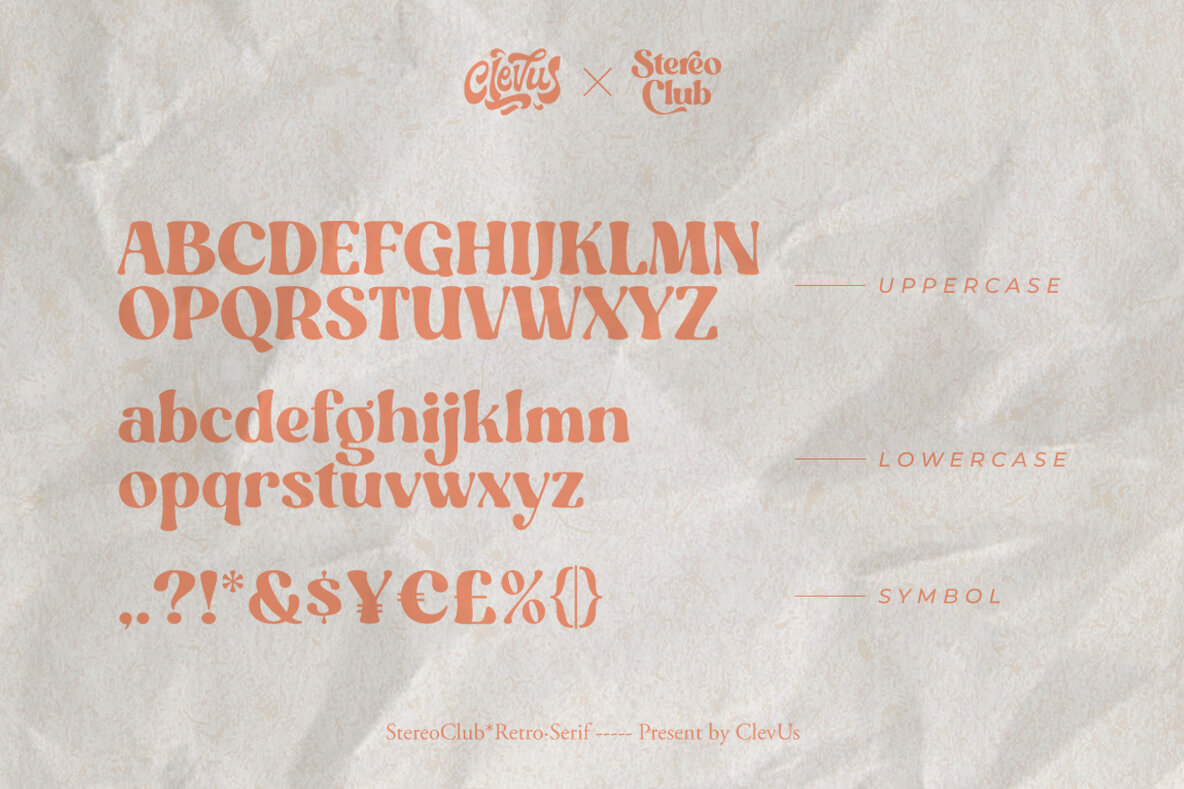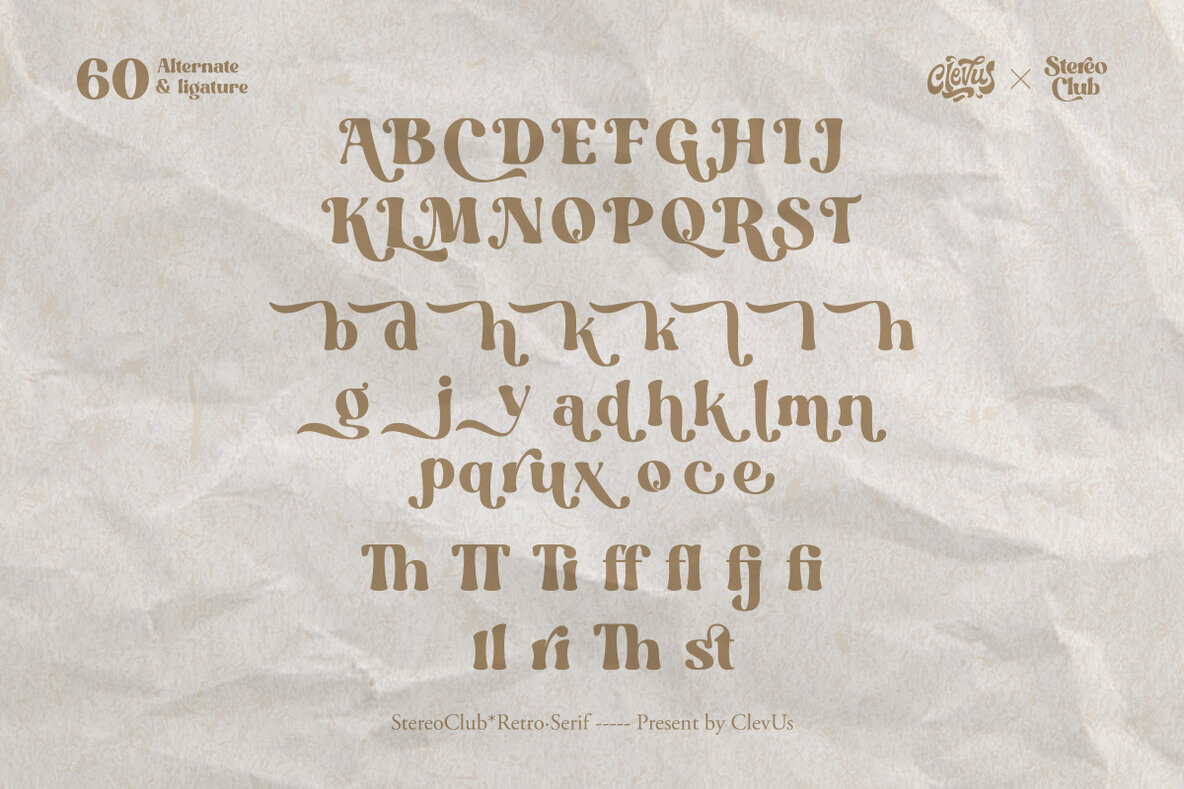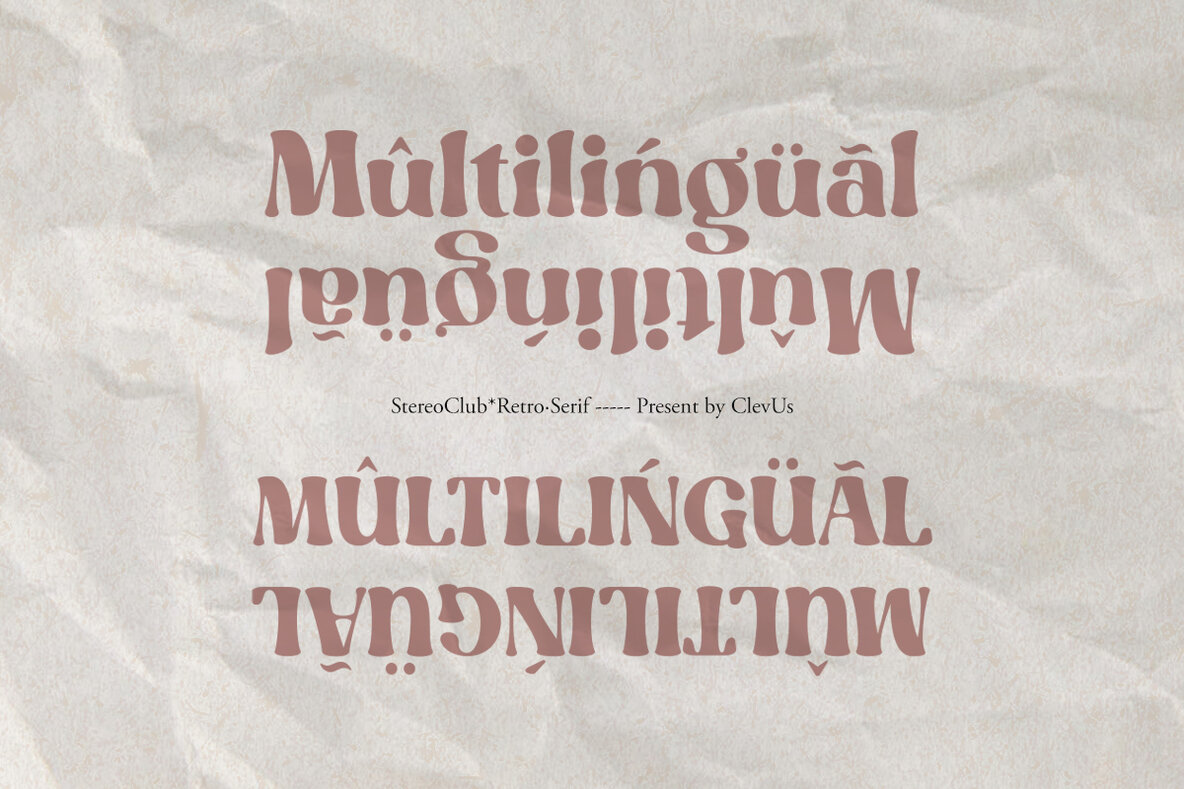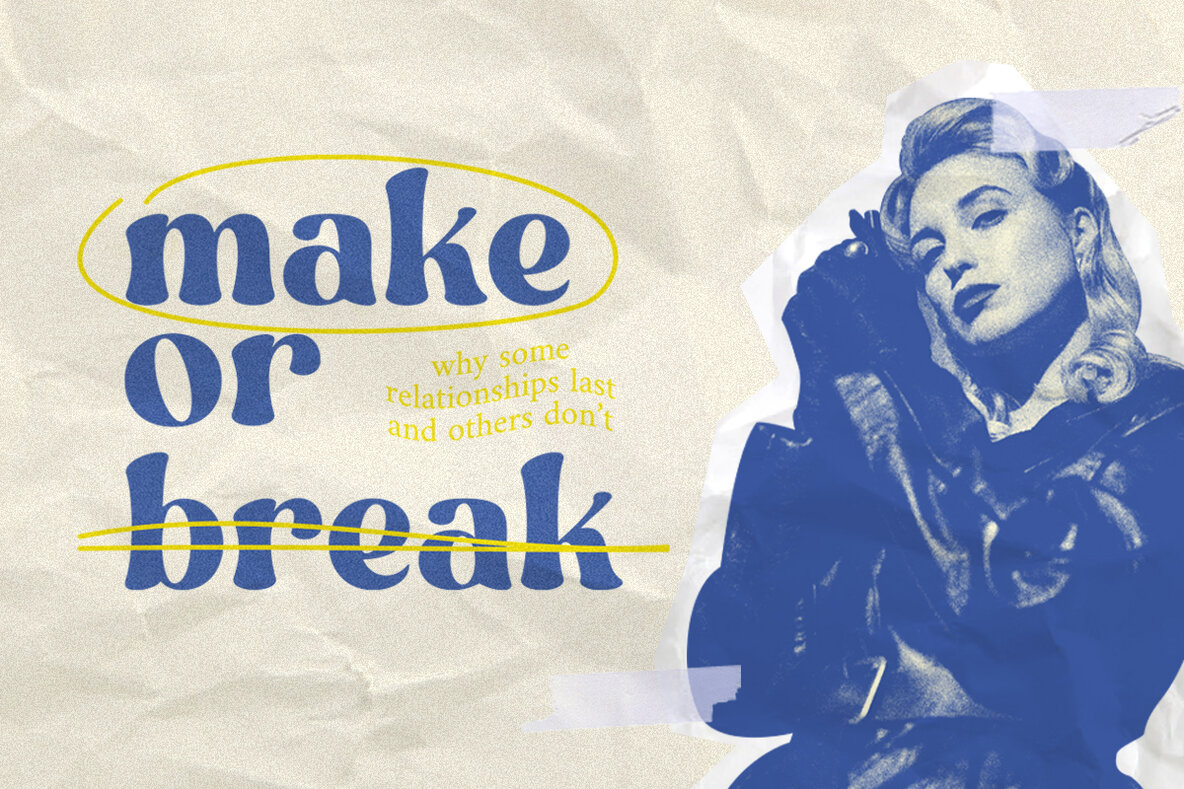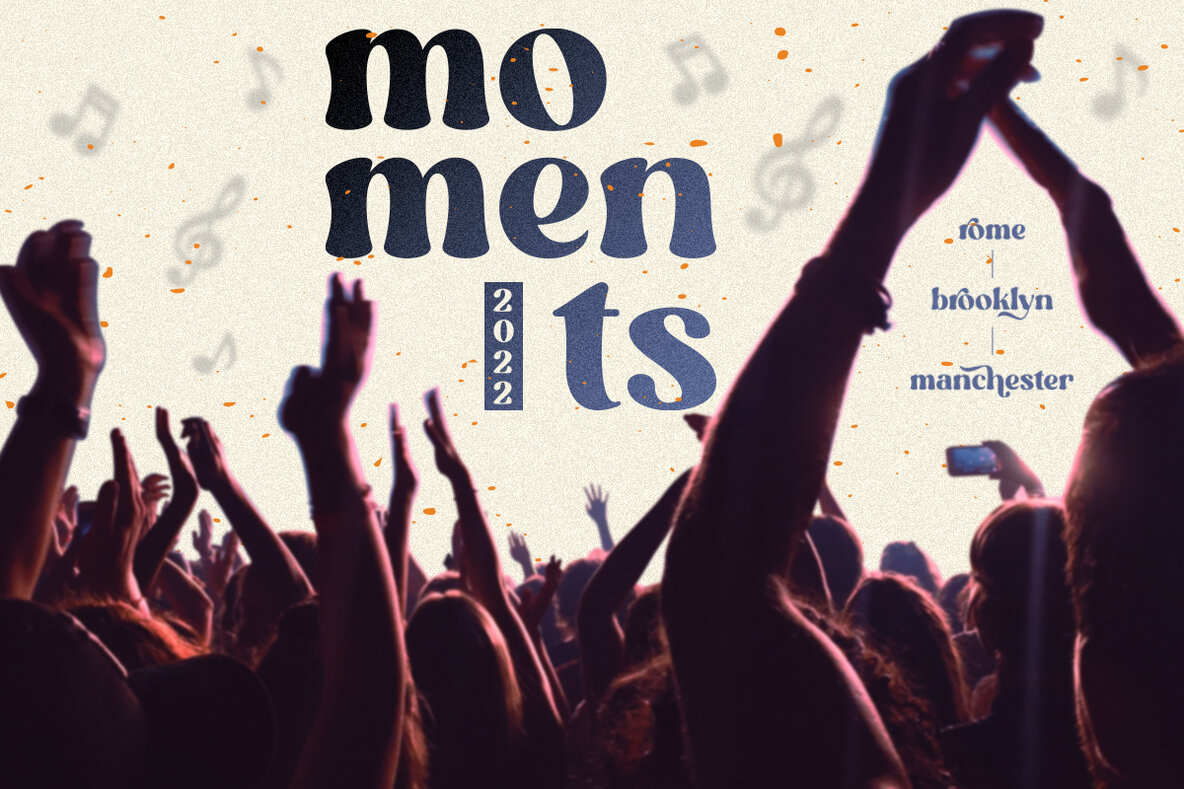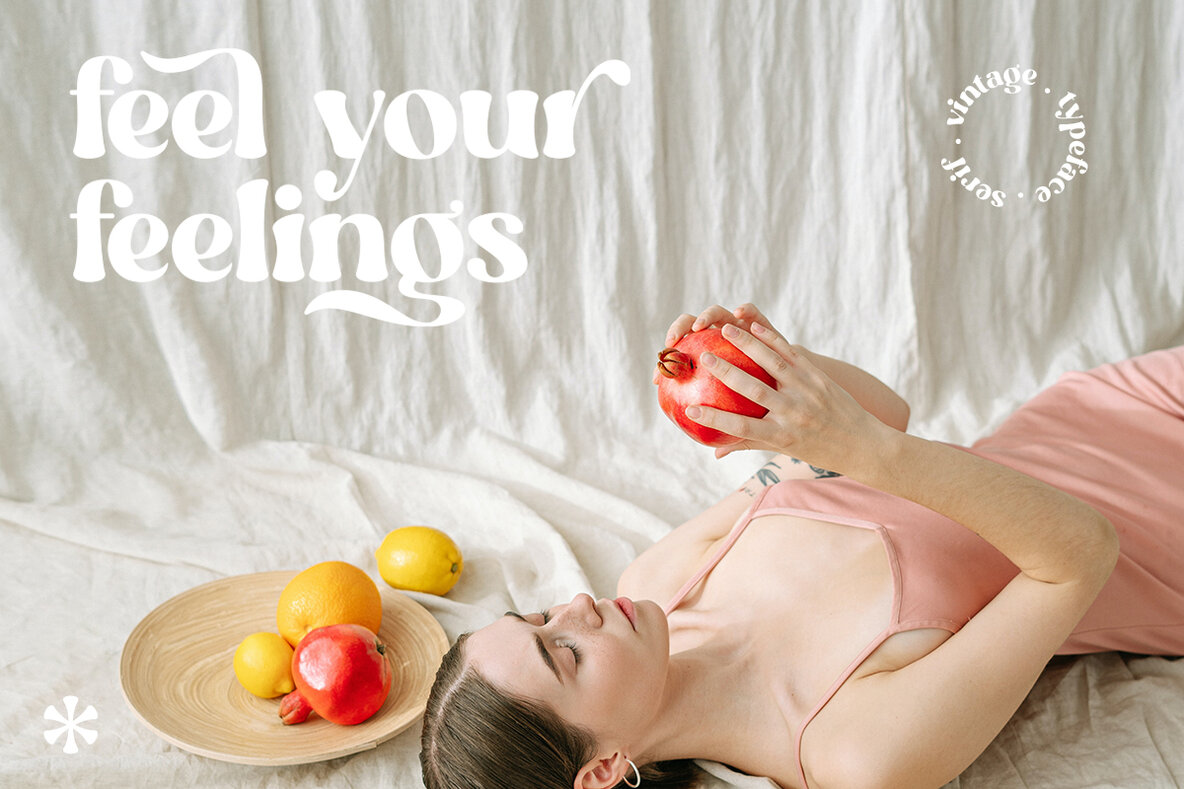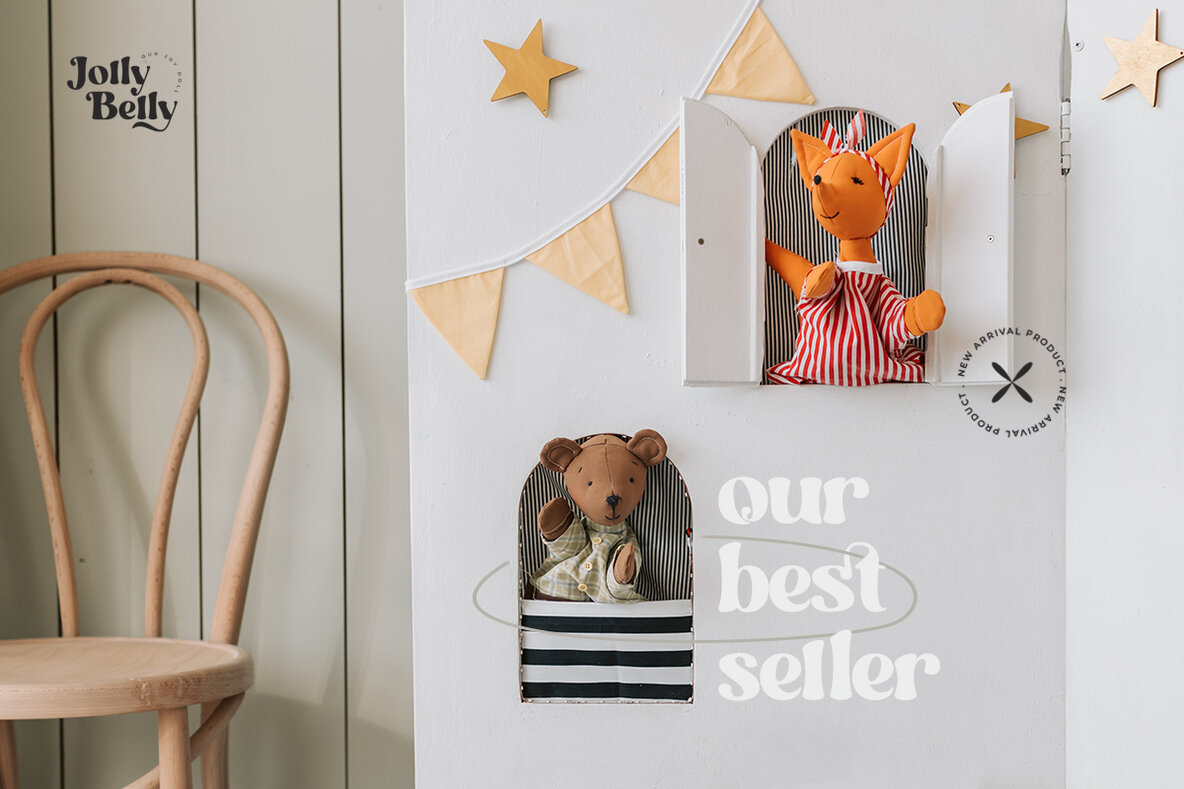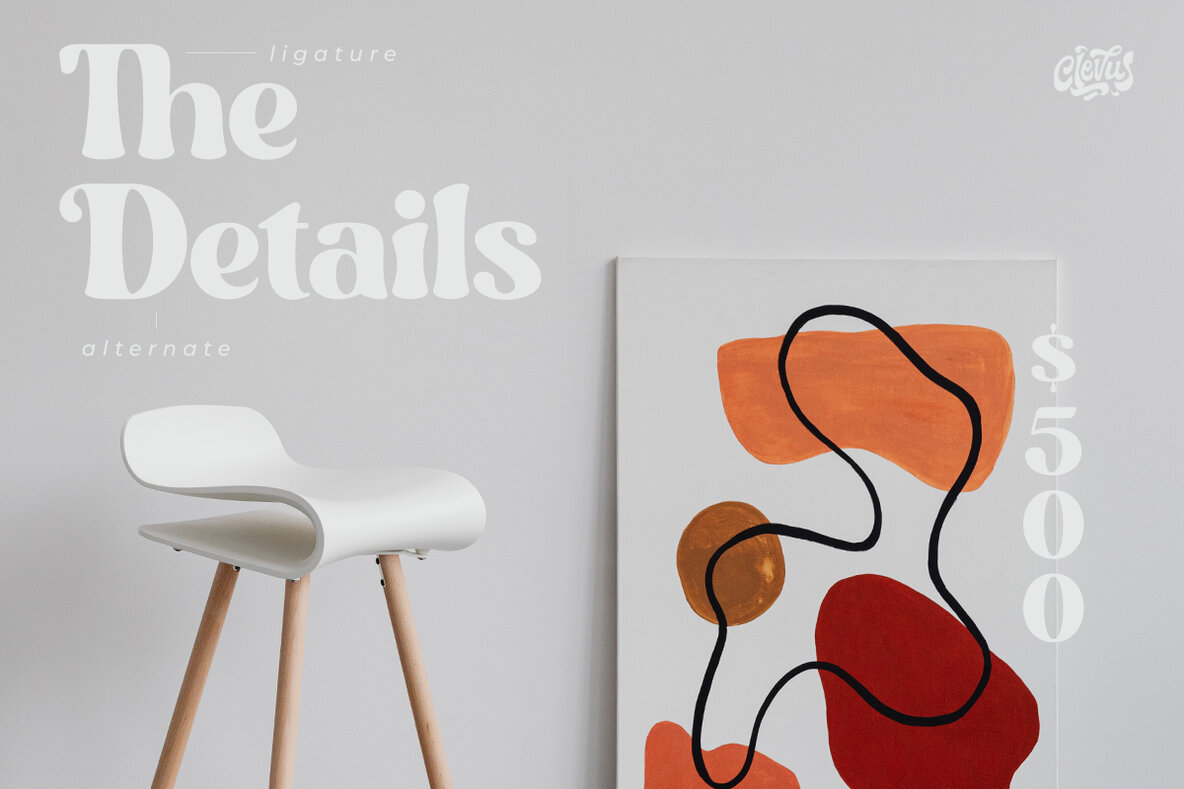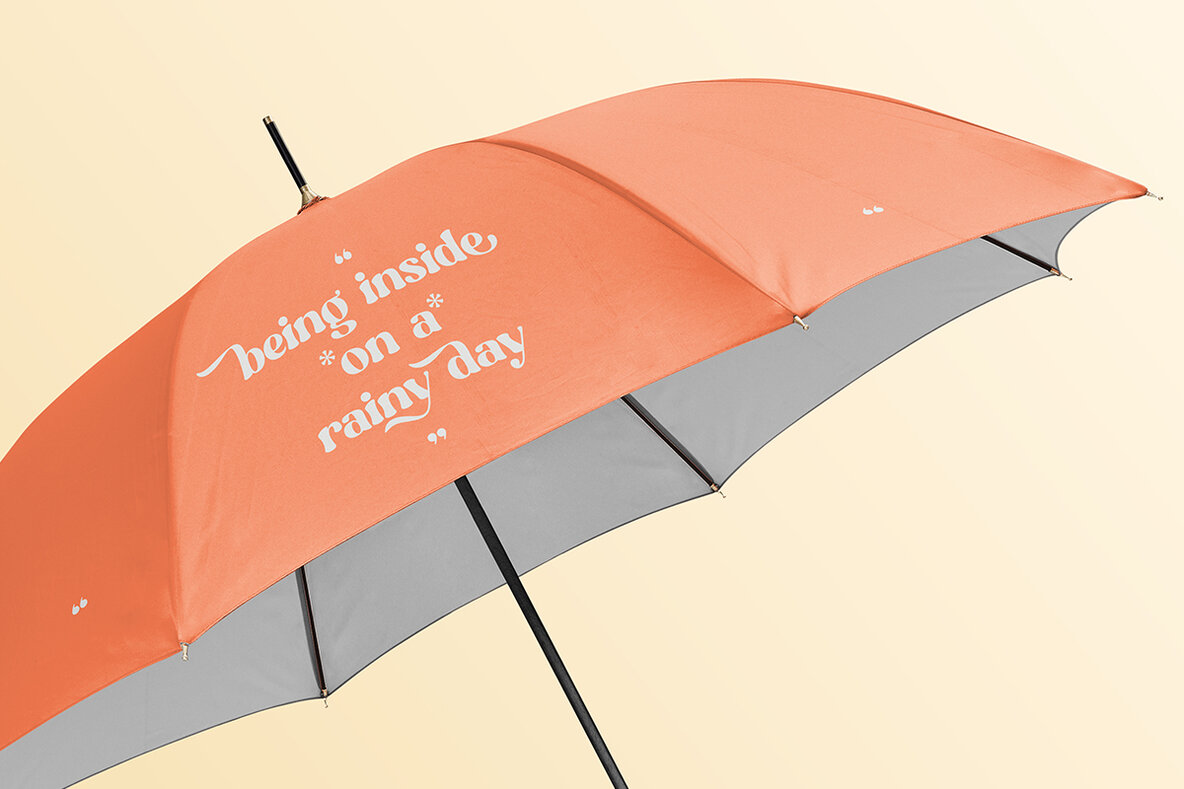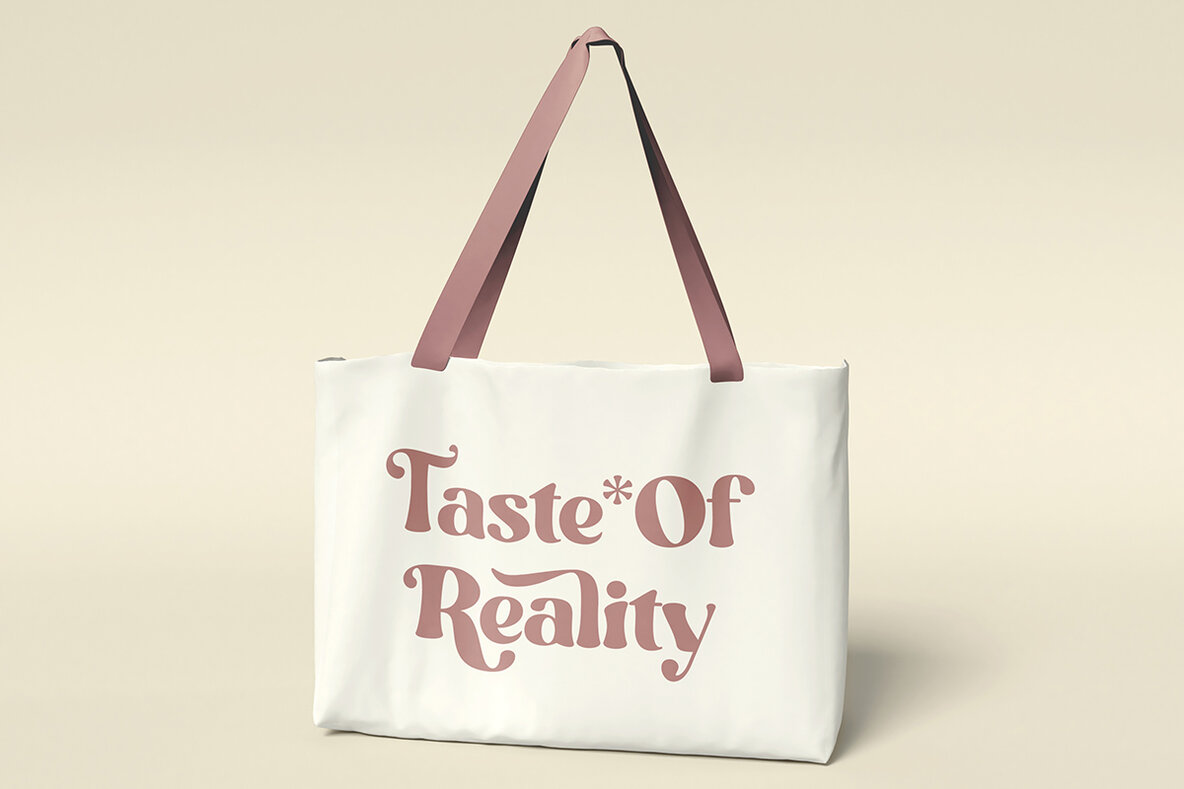
Stereo Club Font
Stereo Club
StereoClub by Clevus is more than just a font—it’s a visual symphony designed to enhance your creative projects. Ideal for crafting striking logos, captivating quotes, compelling blog posts, sophisticated branding, and elegant wedding invitations, this typeface caters to diverse design needs. Use StereoClub seamlessly in any platform or app, from Canva to basic text editors. This typeface ensures that your projects are executed with finesse and function. Enhance your typographical palette with StereoClub’s robust offerings.StereoClub: Modern Bold Typeface with Unique Flair